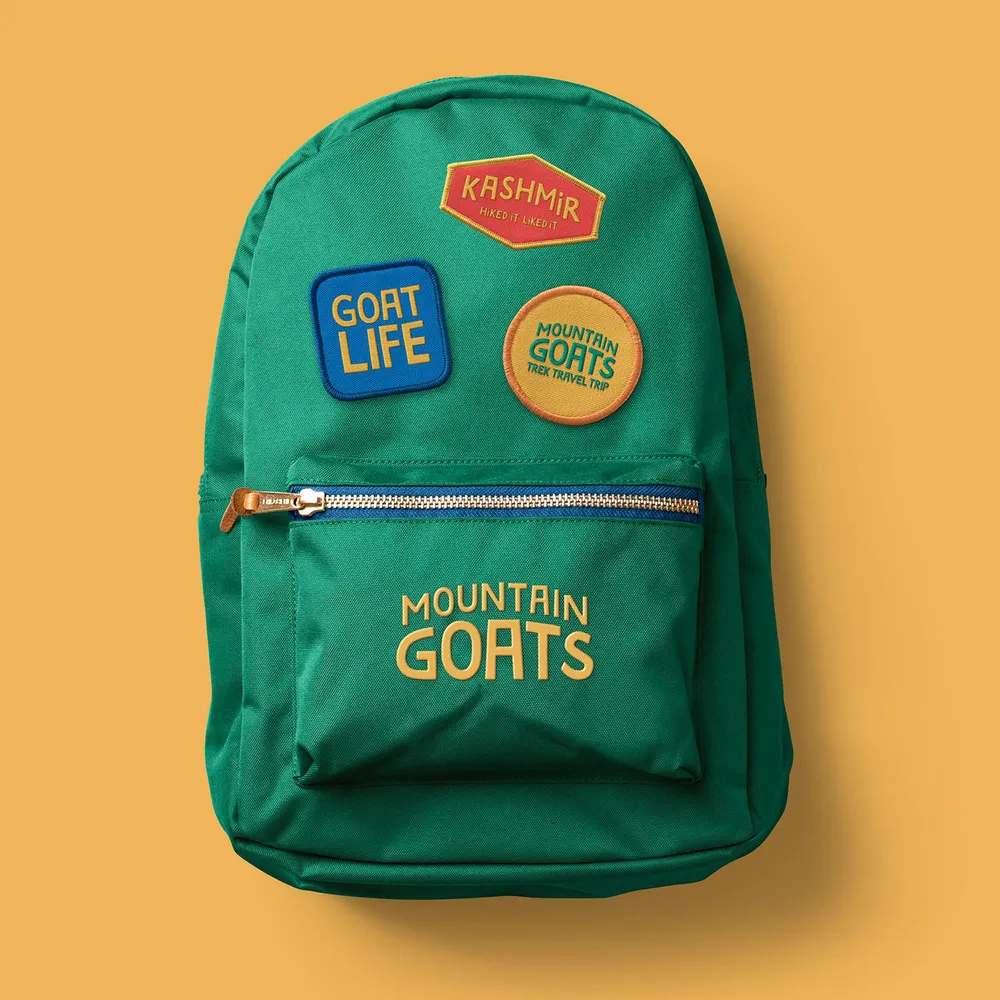
Fonts in Use: Marujo
Mountain Goats
Design by Ross Hammond, a multidisciplinary designer based in London.
“I designed their identity which is inspired by the vast and colourful cultures across India. The logo subtly visualises a mountain range, and the handwritten type throughout the identity gives the brand a bold and personable look and feel.”